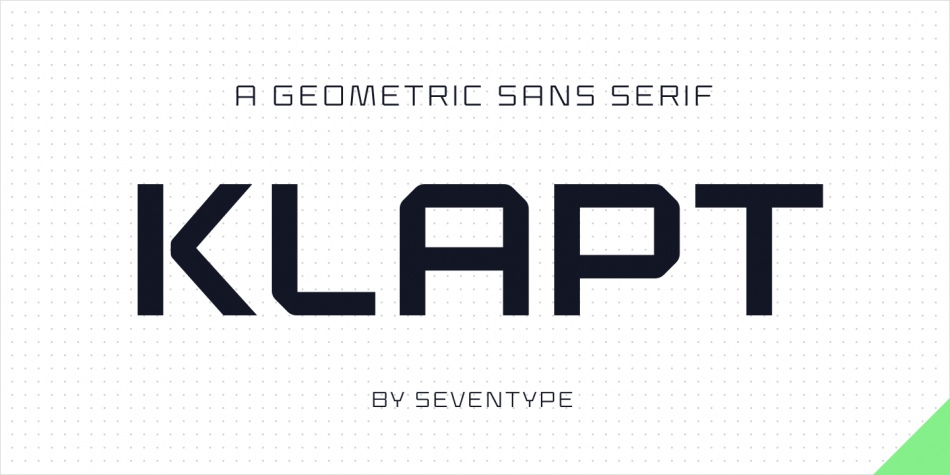
Klapt Font
Klapt Font is perfect for dynamic branding projects, action-packed advertising campaigns, energetic sports marketing, explosive entertainment graphics, bold poster design, high-impact web typography, dramatic movie titles, and attention-grabbing social media content. This powerful typeface works exceptionally well in both digital applications and print media where energy, impact, and immediate visual punch are essential design requirements.
What makes Klapt Font so exciting is its explosive combination of sharp angular construction and dynamic energy that instantly communicates action, power, and unstoppable momentum through bold letterforms. The font features striking characters with dramatic angles, powerful stroke weights, and kinetic spacing that create an immediate sense of movement and explosive force. Its energetic personality and action-oriented design make it ideal for brands seeking to capture attention in fast-paced markets while communicating strength, speed, and dynamic performance to audiences who crave excitement and high-energy experiences.
The Klapt Font family includes multiple weight variations from bold to ultra-black, along with condensed styles and explosive alternates. Each style maintains the typeface's dynamic character while offering comprehensive character sets including powerful numerals, action-focused punctuation marks, and special symbols designed to enhance high-energy communications and explosive branding efforts across various dynamic contexts.
This extraordinary typeface represents the perfect fusion of kinetic energy and professional typography for entertainment and action-oriented industries. Whether you're developing sports brand identities, creating explosive marketing campaigns, or designing action movie promotions, Klapt Font Free Download delivers the dynamic force and versatility needed to dominate attention in competitive environments. The font's explosive aesthetic makes it particularly effective for sports teams, action entertainment, energy drinks, and businesses targeting audiences who live for adrenaline and high-impact experiences.
The precisely engineered dynamic construction and optimized impact rendering in Klapt Font ensure maximum visual force while maintaining clear communication across all high-energy applications. Its explosive presence makes it ideal for headlines, action branding, and dramatic communications where its full kinetic character can create unforgettable impressions and establish immediate association with power, energy, and unstoppable dynamic performance.